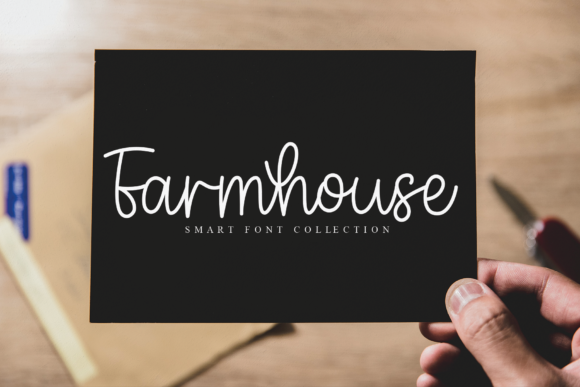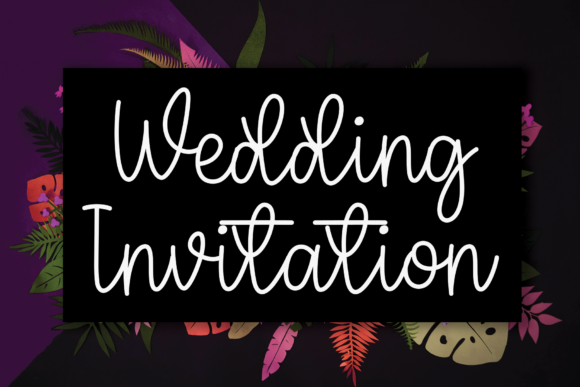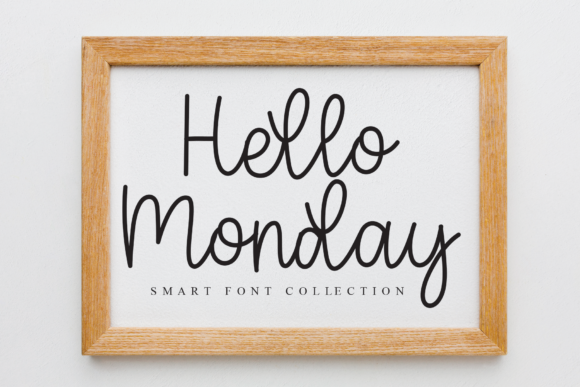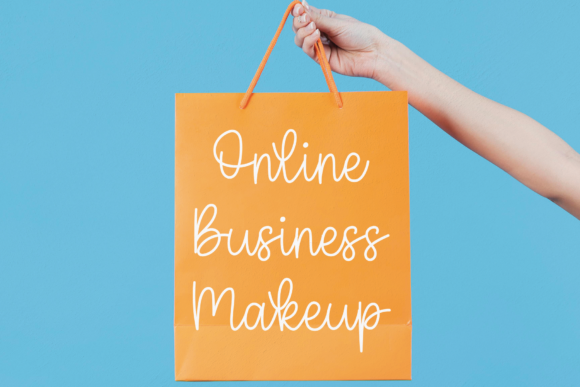
Introducing Hallimun Font: Elevate Your Designs with Elegance and Sophistication
Are you on the hunt for a font that embodies sweetness, elegance, and cleanliness? Look no further than Hallimun Font. This stunning handwritten font is designed to bring a touch of sophistication to your designs, making it perfect for crafters and designers alike. With its beautiful and well-balanced characters, Hallimun Font is versatile enough to match a wide range of design styles, ensuring your creative projects stand out from the crowd.
The Characteristics of Hallimun Font
Hallimun Font boasts a unique blend of sweetness and elegance, making it an ideal choice for designers who want to add a personal touch to their work. The font’s clean lines and balanced characters ensure that it remains legible and visually appealing, even at smaller sizes. Whether you’re working on a logo, a website, or a craft project, Hallimun Font is sure to make your designs come alive.
Why Choose Hallimun Font?
So, what sets Hallimun Font apart from other fonts on the market? Here are just a few reasons why designers and crafters are falling in love with this beautiful font:
- Elegance and Sophistication: Hallimun Font exudes elegance and sophistication, making it perfect for high-end designs, branding, and luxury crafts.
- Versatility: With its clean and balanced design, Hallimun Font can be used in a wide range of projects, from digital designs to print materials.
- Legibility: The font’s clear and readable design ensures that your message is conveyed effectively, even at smaller sizes.
- Uniqueness: Hallimun Font has a distinctive style that sets it apart from more traditional fonts, giving your designs a personal touch.
How to Use Hallimun Font in Your Designs
Ready to incorporate Hallimun Font into your designs? Here are a few ideas to get you started:
- Branding and Logos: Use Hallimun Font to create a luxurious and sophisticated brand identity that stands out from the competition.
- Digital Designs: Add a touch of elegance to your website, social media graphics, or email newsletters with Hallimun Font.
- Crafting and Scrapbooking: Use Hallimun Font to add a personal touch to your craft projects, such as scrapbooking, card making, or journaling.
- Print Materials: Incorporate Hallimun Font into your print designs, such as brochures, flyers, or business cards, for a professional and polished look.
Tips for Getting the Most Out of Hallimun Font
To make the most of Hallimun Font, here are a few tips to keep in mind:
- Experiment with Colors: Pair Hallimun Font with a range of colors to create a unique and eye-catching design.
- Mix and Match Fonts: Combine Hallimun Font with other fonts to create a visually appealing contrast.
- Pay Attention to Spacing: Make sure to leave enough space between lines and characters to ensure your design remains legible and easy to read.